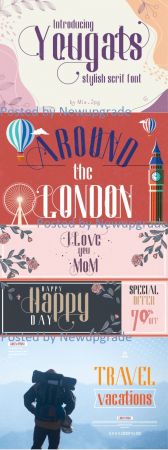
Yougats is a stylish serif font which was inspired by classic roman retro fonts. It will look particularly adept when used in logos, branding, packaging design, and much more. This masterfully designed Yougats is a true must-have.